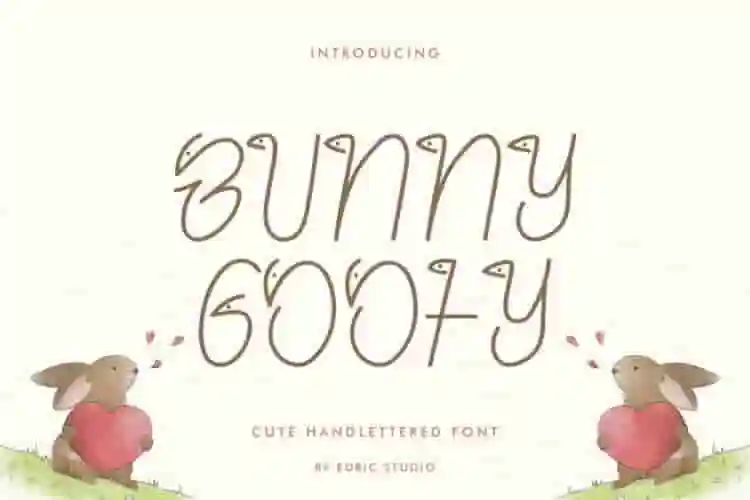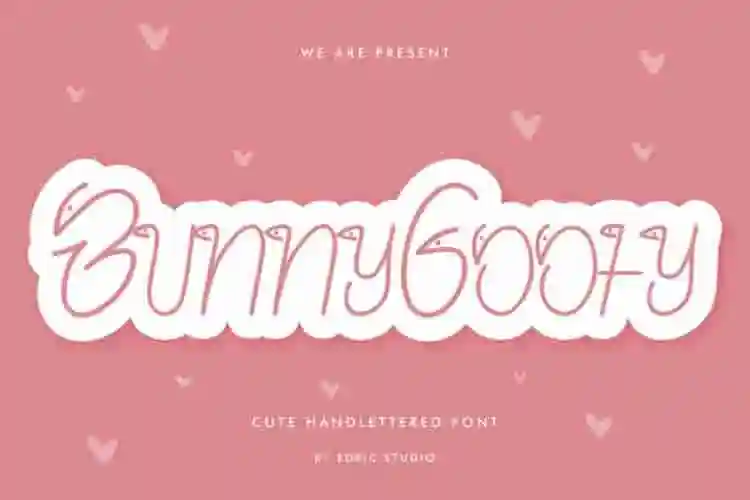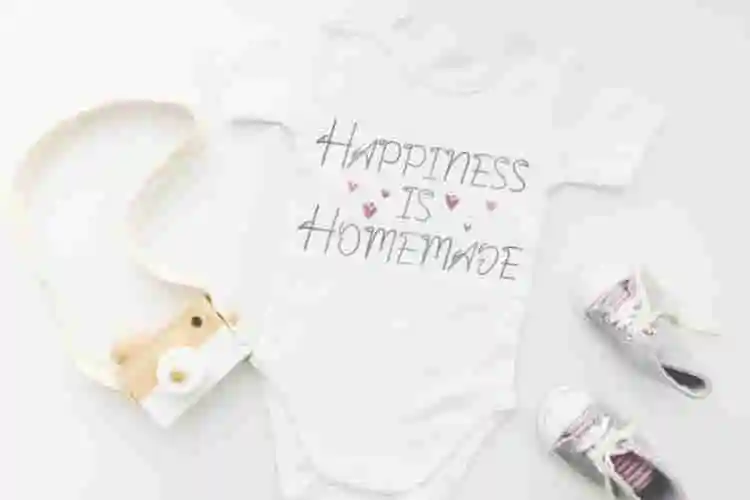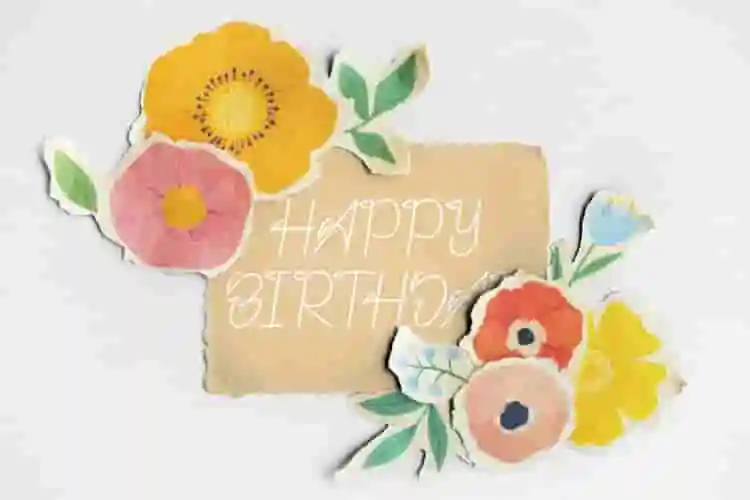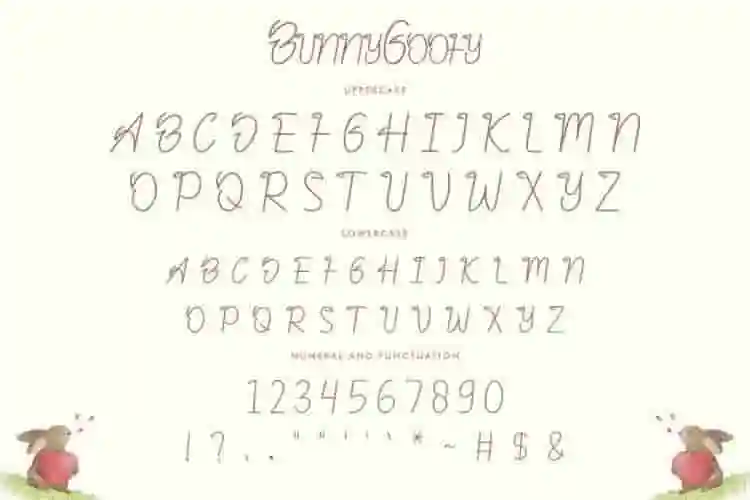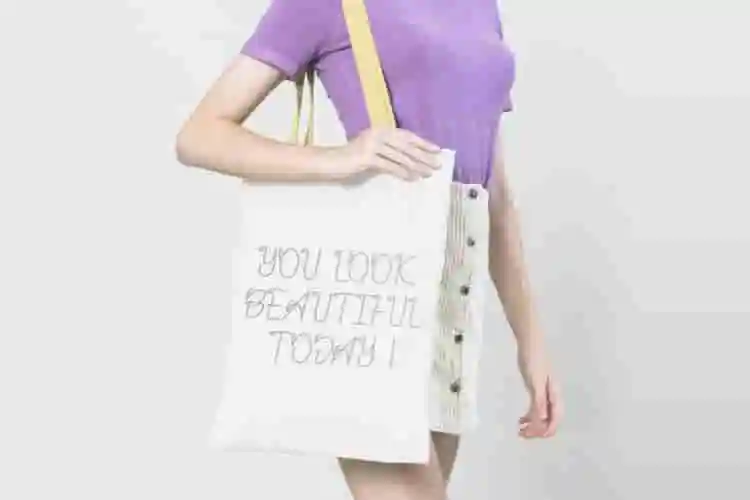
Bunny Goofy Font is a playful display font with bunny-like shape writing style effect. We made it uniquely with special shapes inspired from kids first handwriting. The font will looks good for many projects : games, children books, products, merchandising, cover, banner, tags, cards etc. It will be great for fun projects, kids theme, school, science project etc
Looking for a playful and eye-catching typeface to bring your designs to life? Introducing Bunny Goofy Display Font – a quirky, bold, and charming display font that adds instant joy to any creative project.
Perfectly crafted for children’s books, birthday invitations, cartoon logos, toy packaging, YouTube thumbnails, stickers, posters, and more – Bunny Goofy is designed to make your message stand out with a smile.
Its hand-drawn, bouncy letterforms and cheerful vibe give it a unique personality that’s perfect for both kids and the young at heart.